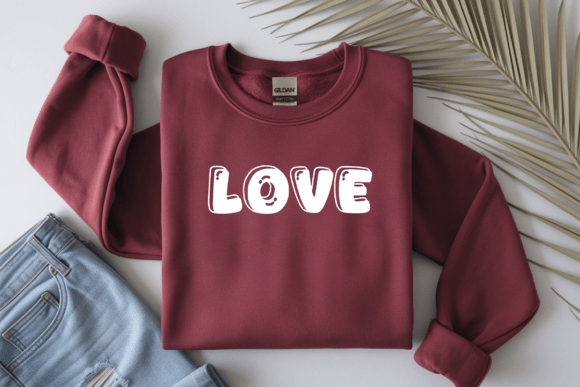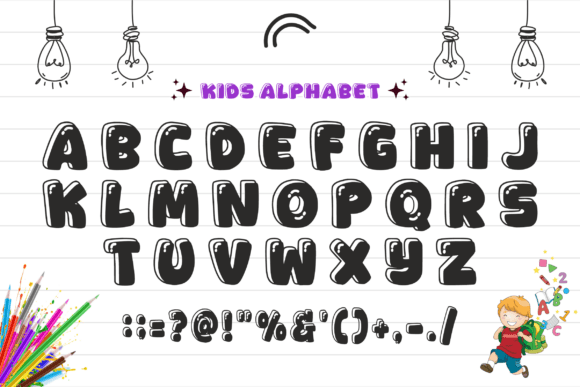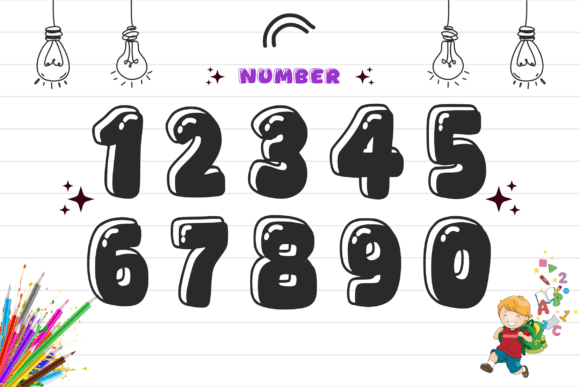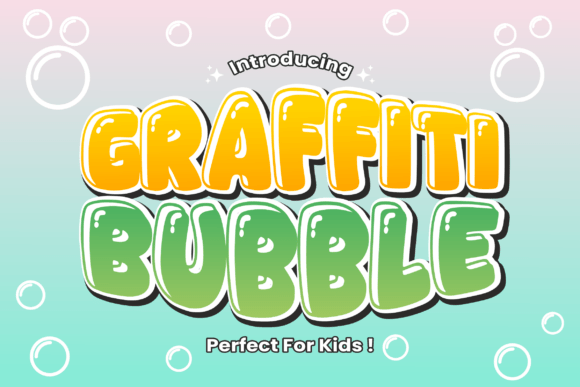
Unveiling Graffiti Bubble: The Ultimate Font for Playful Designs
Are you tired of using the same old fonts for your sublimation designs, animations, and comic titles? Look no further! Introducing Graffiti Bubble, a delightful fusion of playful aesthetics and contemporary design that’s sure to take your creations to the next level. This charming bubble font is designed to add a touch of whimsy and fun to any project, making it perfect for designers and crafters looking to create something extraordinarily cute.
The Charm of Graffiti Bubble
Each letter in the Graffiti Bubble font is carefully crafted to elicit charm and personality. The bubbles that make up the letters are rounded and smooth, giving the font a friendly and approachable feel. The font is distinctive and effortless to use, making it perfect for a wide range of applications, from sublimation designs on t-shirts, mugs, and tote bags to animations, comic titles, and more.
Graffiti Bubble is more than just a font – it’s a canvas waiting for your creativity to splash across it. With its playful and modern design, this font can be used to create a wide range of projects, including:
- Sublimation designs: Add a touch of personality to your t-shirts, mugs, tote bags, and other sublimation designs with Graffiti Bubble.
- Animations: Bring your animations to life with the playful and dynamic design of Graffiti Bubble.
- Comic titles: Create eye-catching comic titles that pop with Graffiti Bubble’s bold and colorful design.
- Signs and posters: Use Graffiti Bubble to create fun and playful signs and posters that grab attention.
Why Choose Graffiti Bubble?
So why choose Graffiti Bubble over other fonts? Here are just a few reasons:
- Unique and distinctive: Graffiti Bubble is a one-of-a-kind font that’s sure to set your designs apart from the crowd.
- Easy to use: The font is effortless to use, even for those with limited design experience.
- Versatile: Graffiti Bubble can be used for a wide range of projects, from sublimation designs to animations and comic titles.
- Playful and modern: The font’s playful and modern design makes it perfect for creating fun and engaging projects.
Tips for Using Graffiti Bubble
Here are a few tips for getting the most out of Graffiti Bubble:
- Experiment with colors: Graffiti Bubble looks great in a wide range of colors, so don’t be afraid to experiment and find the perfect combination for your project.
- Play with size: The font looks great in a variety of sizes, from small and subtle to large and bold.
- Add effects: Consider adding effects like shadows, outlines, or textures to give your text an extra boost of personality.